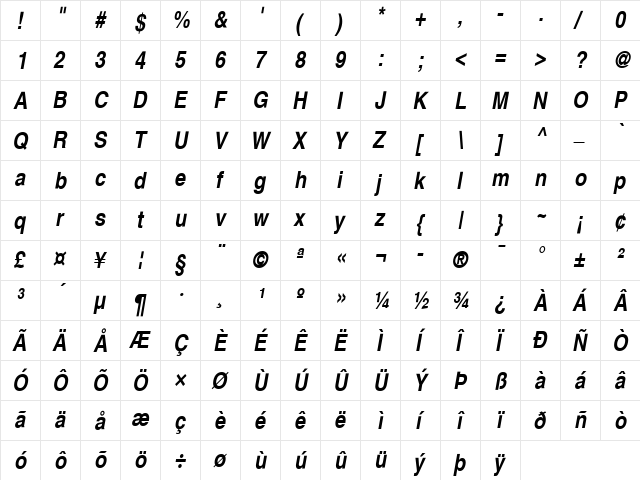
Nimbus Sans L Regular
| Foundry | by URW |
Design Context for Nimbus Sans L Typeface
Nimbus Sans L offers clean, dependable letterforms without strong stylistic allegiance, making it a practical choice for designers who need flexibility.
Pro Tip: Use Nimbus Sans L in both headline and body roles to test its range before committing to a single application.